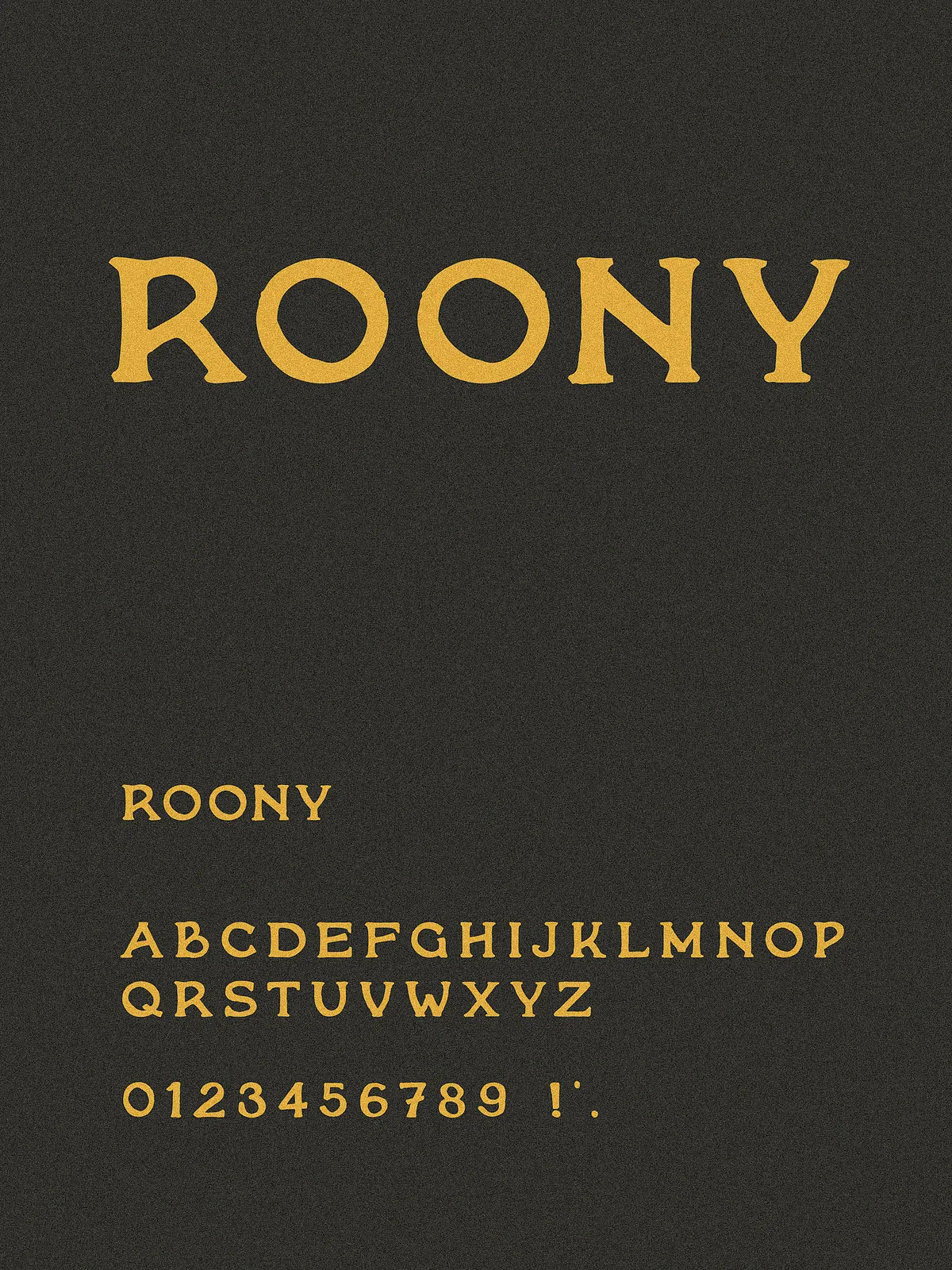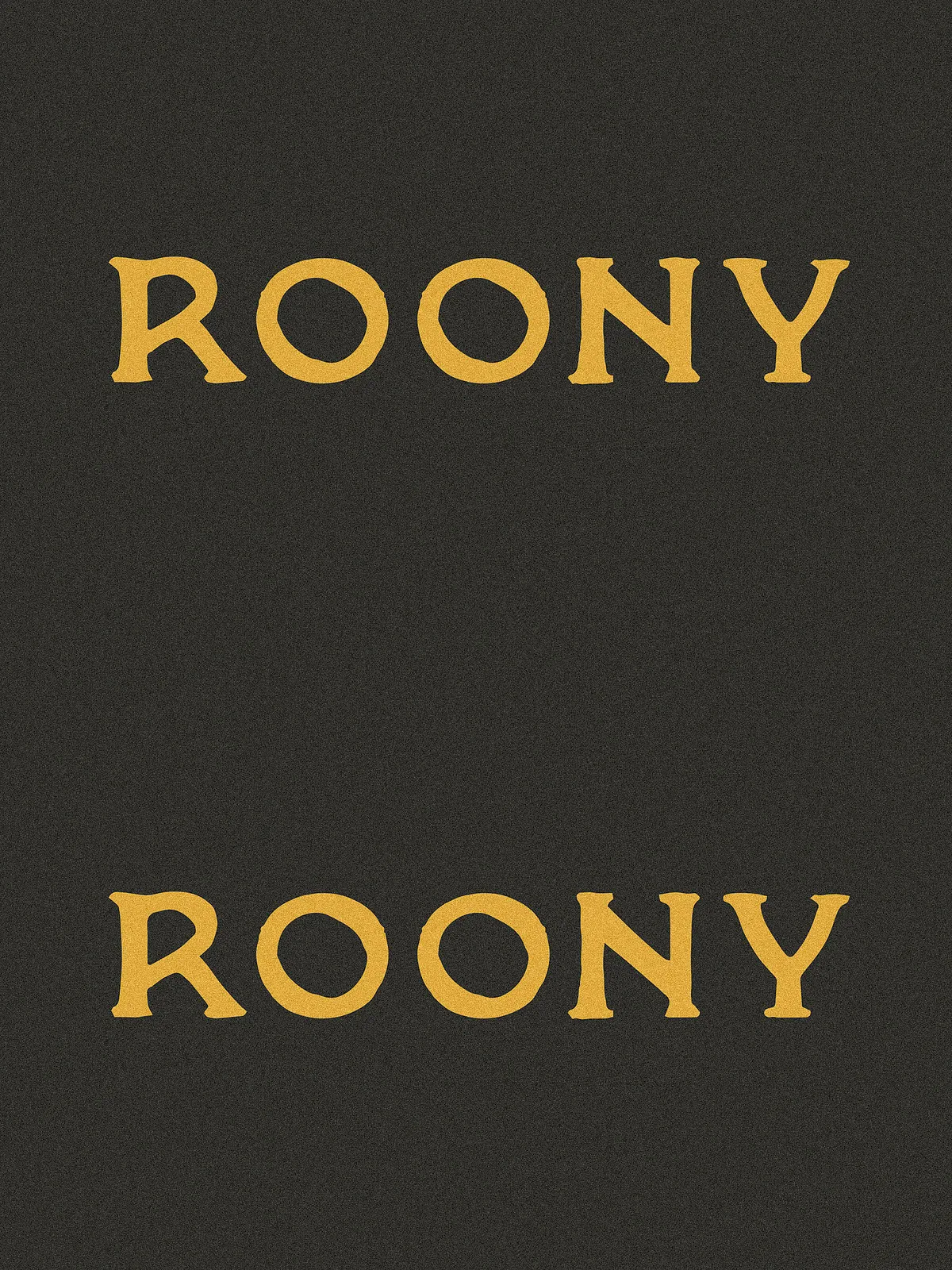
Roony is certified organic and it’s letter forms are locally sourced. This font is ethically made and you guessed it — is free range.
Comes with full uppercase alphabet, numbers, and basic punctuation.